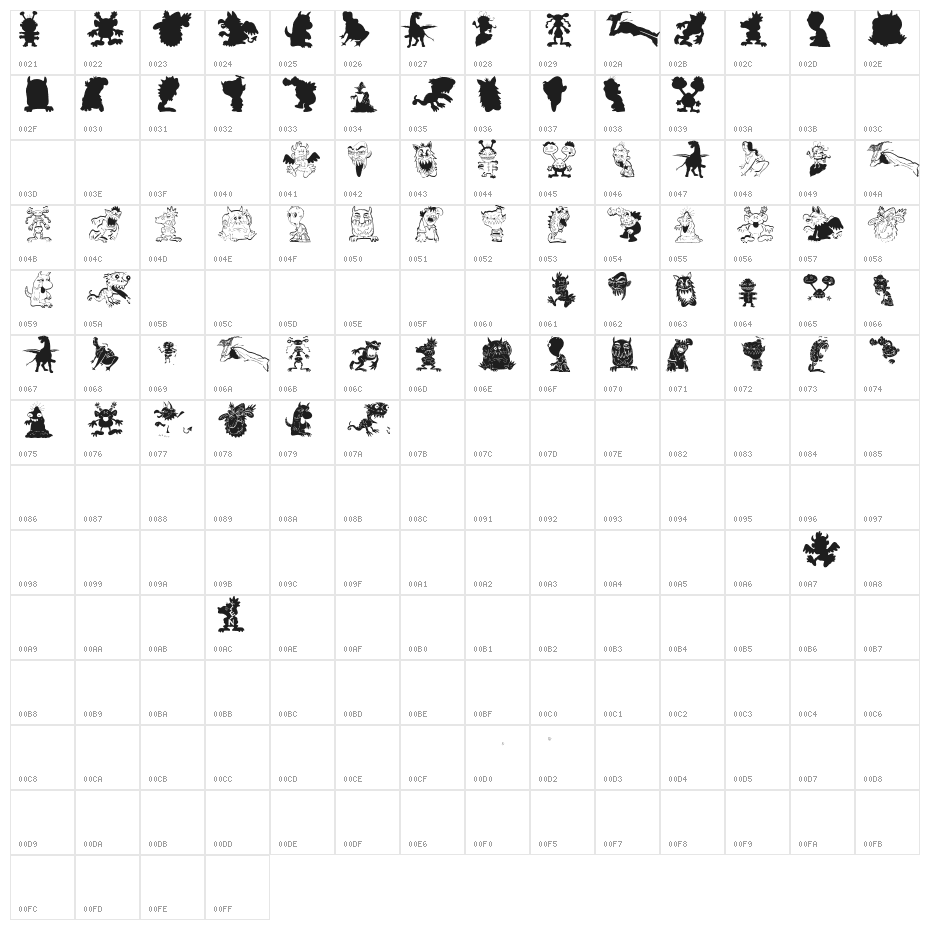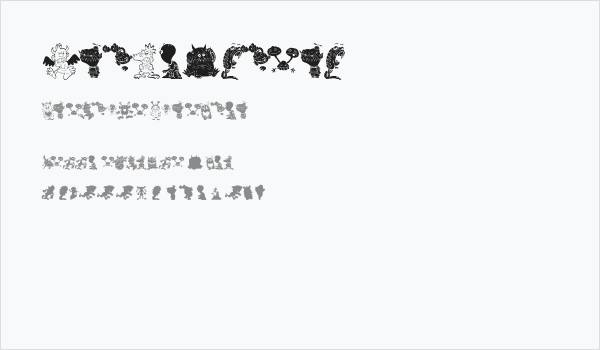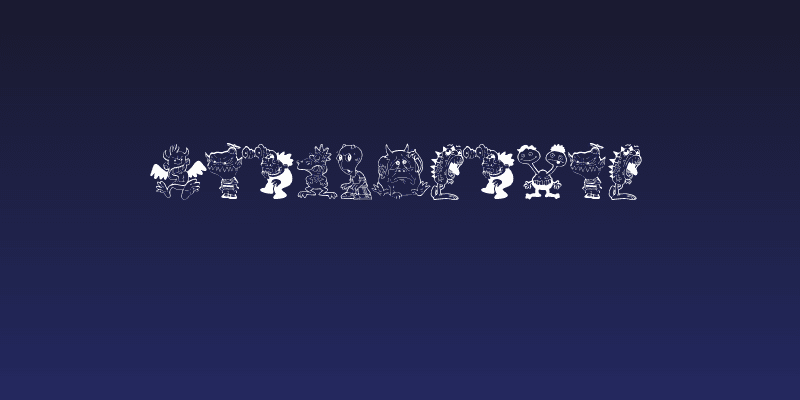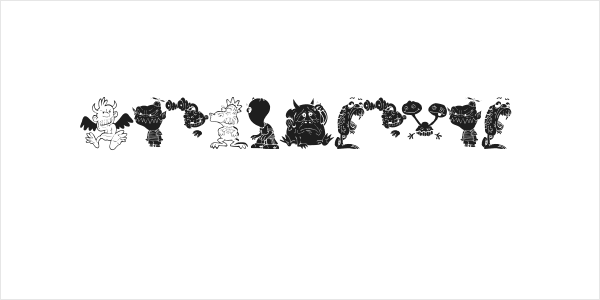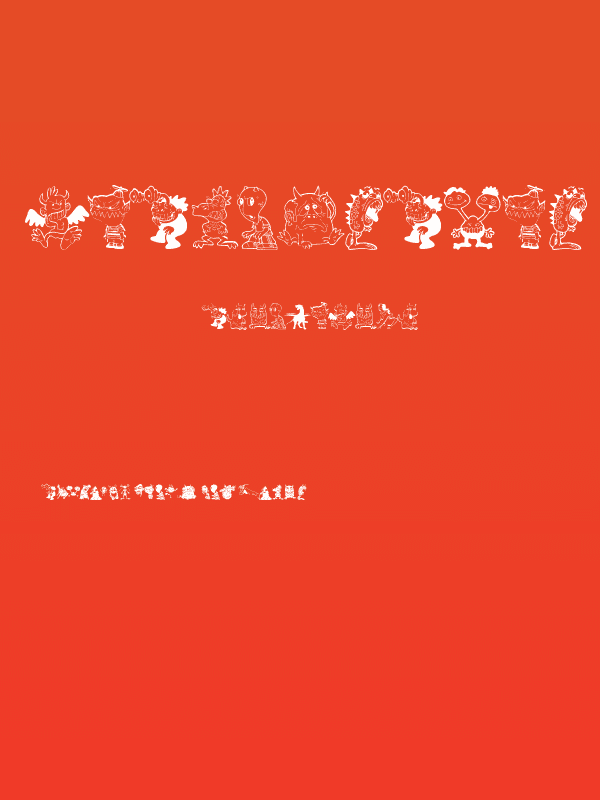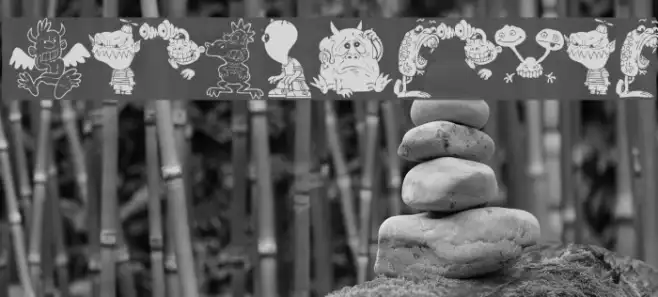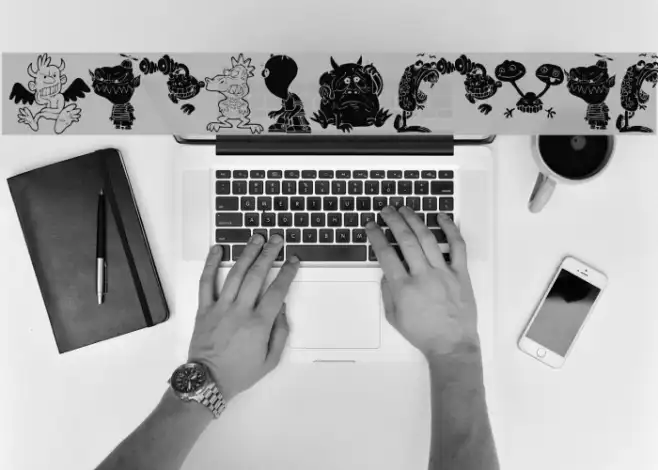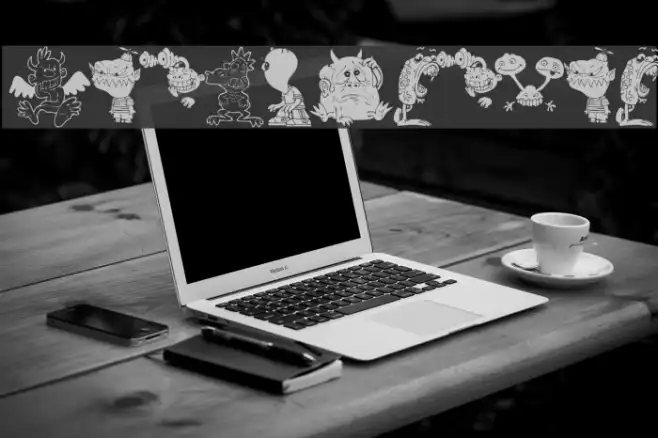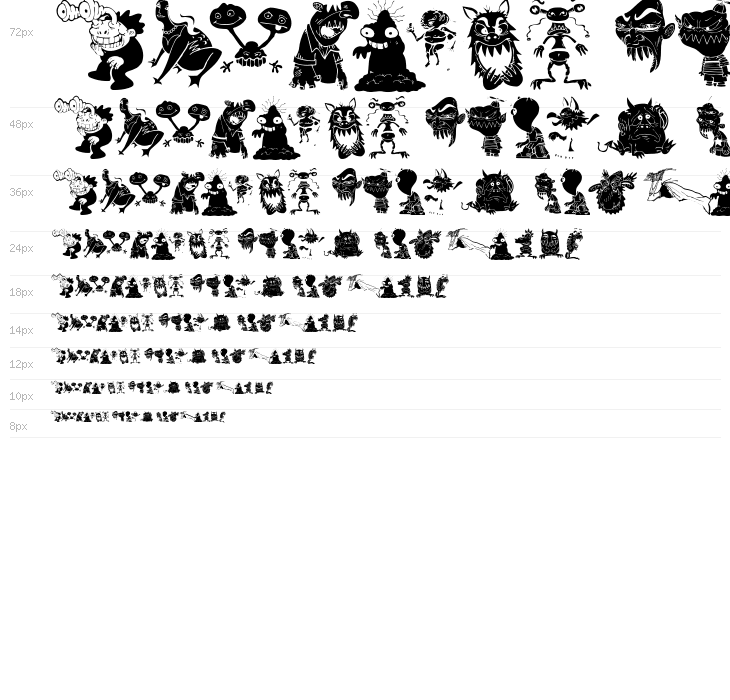
ArtMonsters Font
ArtMonsters Description
A playful and highly decorative font composed entirely of unique, hand-drawn monster and creature illustrations for each character, with a whimsical and cartoonish style. The glyphs are detailed, expressive, and vary widely in silhouette and complexity, making each letterform distinct and visually engaging.
| Overall Style | Decorative, Whimsical, Playful |
| Use Case | Headlines, Posters, Logos, Themed Graphics |
| Proposed Projects | Children’s book titles, Halloween event posters, party invitations, themed branding, playful packaging, creative art projects. |